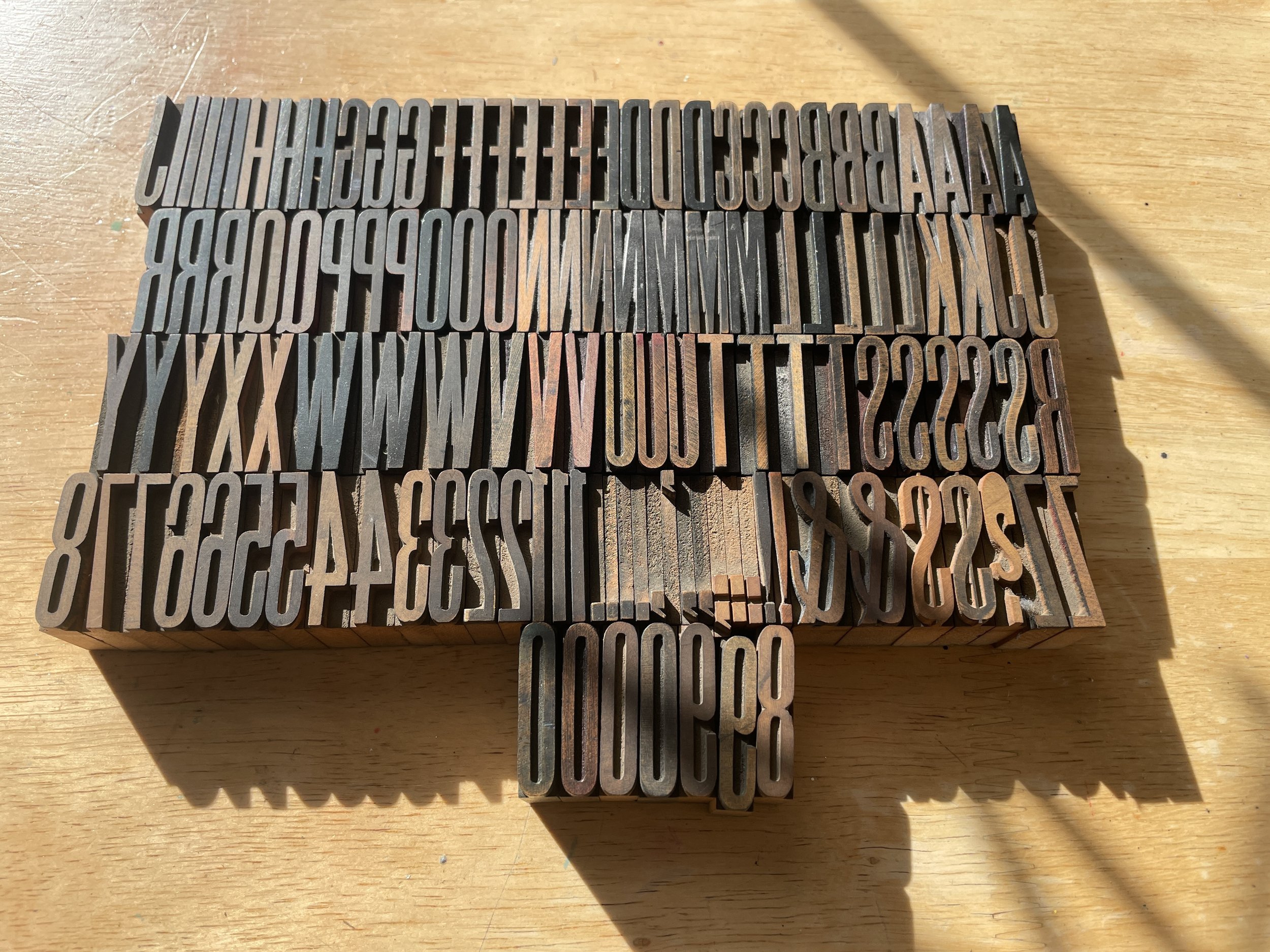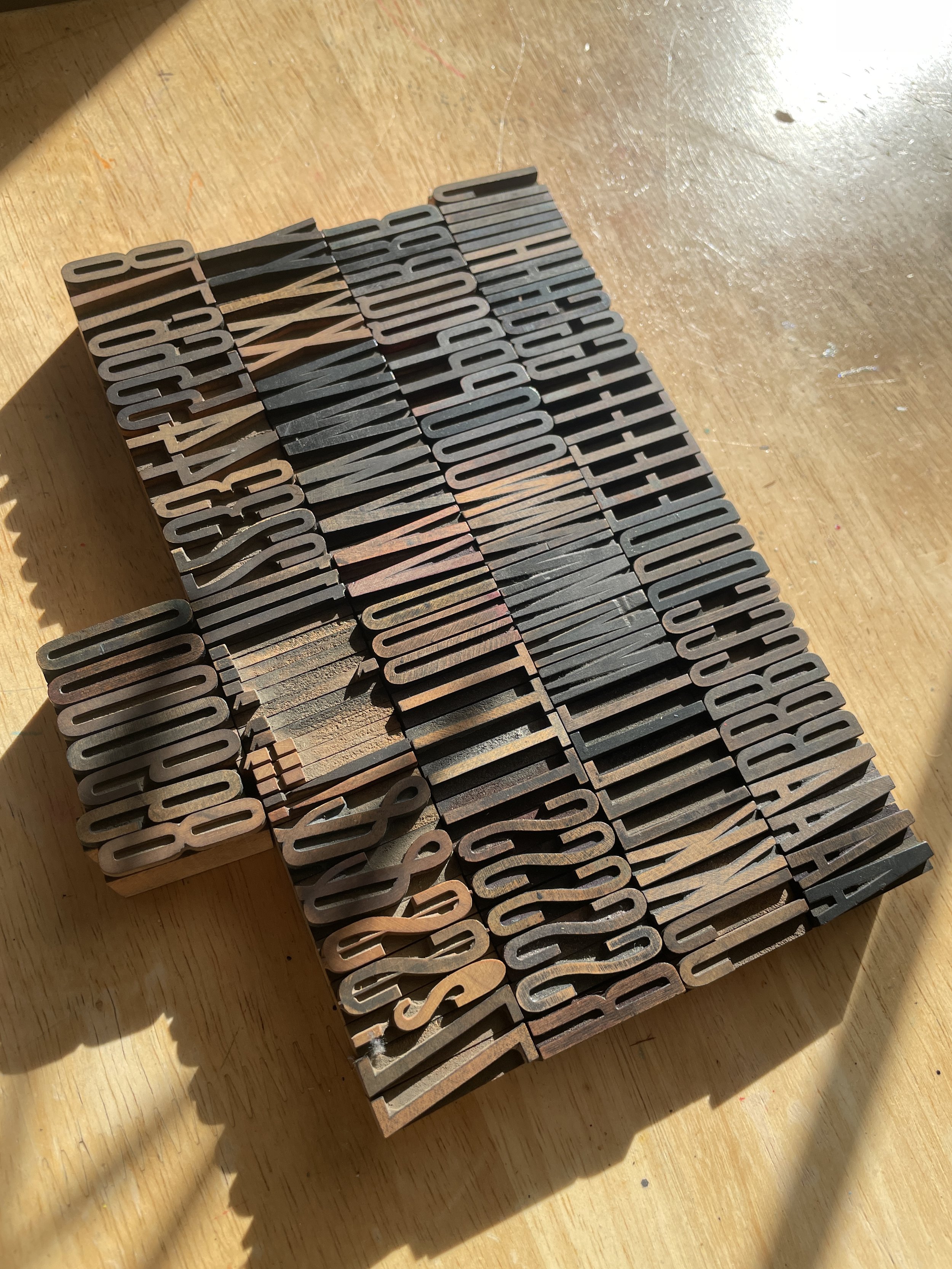
8 Line Gothic XXX Condensed American Wood Type Font (W45)
A beautiful early twentieth century American 8 line gothic triple condensed wood type. Includes all shown.